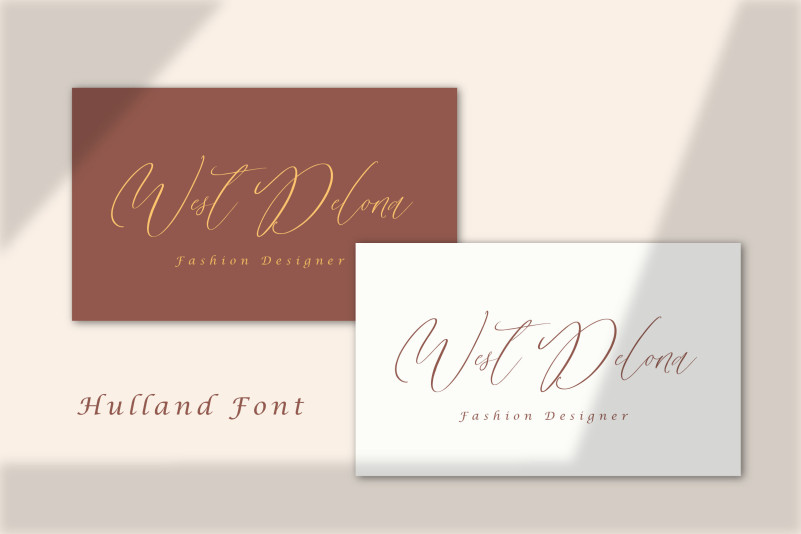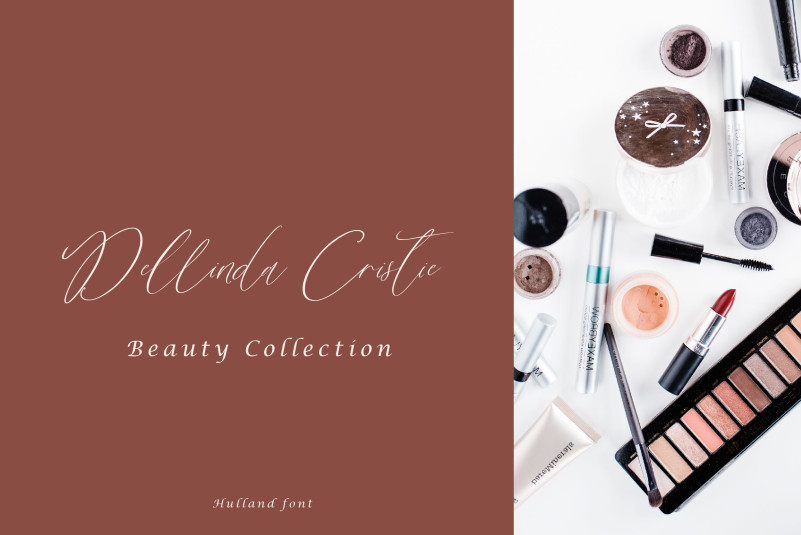
Hulland Font
Hulland Script Font is an exquisite and elegant script font. Its delicate design features graceful, sweeping strokes and intricate flourishes that evoke a sense of romance and refinement. Perfect for wedding invitations, elegant branding, and other sophisticated designs. This font is PUA encoded which means you can access all glyphs and swashes effortlessly!